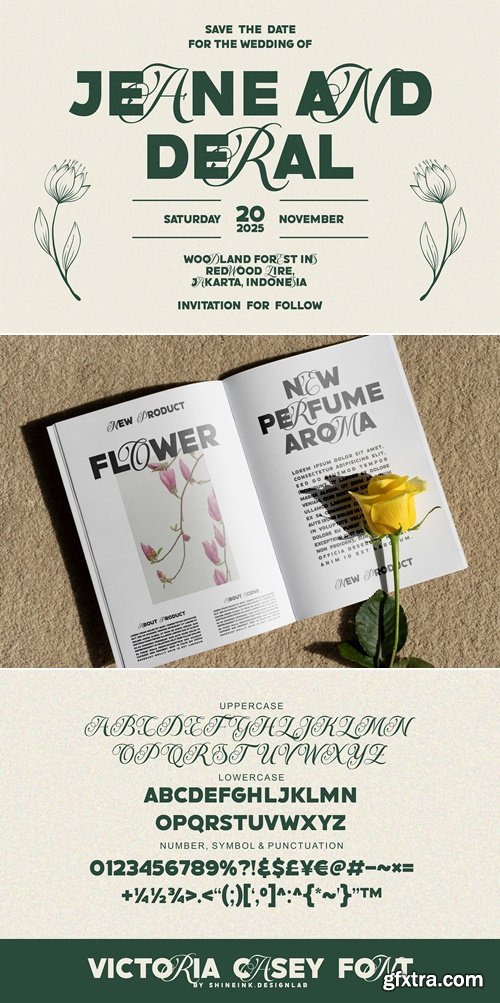
- I'm present to you, a calligraphy combine sans serif typeface, called Victoria Casey!
- Victoria Casey a stylish fusion of bold sans serif and graceful calligraphy. This unique font duo blends modern strength with classic elegance, making it perfect for high-end branding, editorial design, wedding invitations, logos, and packaging.
- The striking contrast between clean, bold letterforms and sophisticated script flourishes adds personality and visual interest to any project. Whether you're designing a luxurious brand or a romantic stationery set, Victoria Casey brings charm and professionalism in one package.